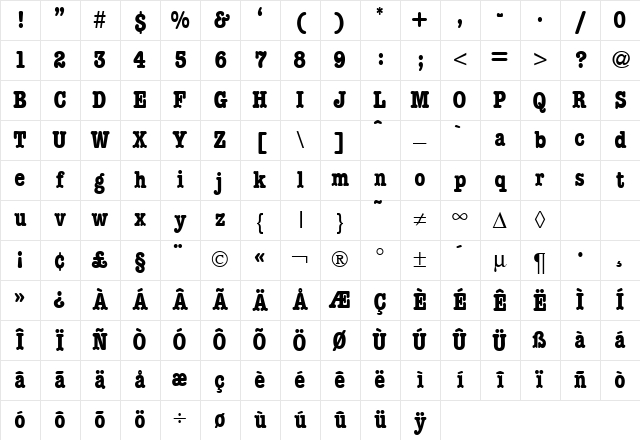
ModernTypewriterCond Bold
ModernTypewriterCond Family
Design Context for ModernTypewriterCond
ModernTypewriterCond uses fixed-width spacing throughout, giving it the structured, systematic character associated with coding environments and technical documentation. Its bold stroke weight gives it real presence on the page.
Pro Tip: Use ModernTypewriterCond with slightly increased line-height for extended reading - fixed-width spacing can feel dense in longer passages without extra breathing room.